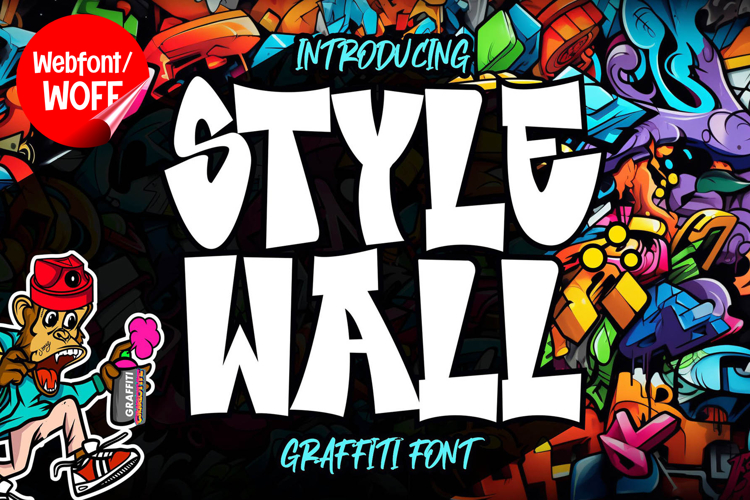
Style Wall | Awesome Graffiti Webfont for Urban Creative
Style Wall is an awesome graffiti webfont designed to capture the spirit of street art and transform it into a bold, expressive solution for modern website design. Inspired by graffiti murals, tagging culture, and urban creativity, this font features energetic letterforms and artistic details that create a strong and dynamic visual identity. It is an excellent choice for projects that aim to stand out with authentic street style and creative impact.
Style Wall includes a complete set of uppercase characters designed with bold graffiti-inspired shapes. The letterforms are expressive and dynamic, combining sharp edges with flowing curves to create a sense of movement and energy. These characteristics make it ideal for headlines, banners, hero sections, and featured content where strong visual impact is essential.
In addition to letters, the font includes numbers and punctuation, allowing flexible usage across various parts of a website. It works well for branding elements, promotional content, event announcements, music platforms, and creative layouts. Each character maintains a consistent graffiti style, ensuring a cohesive and unified visual identity throughout the design.
With multilingual support, Style Wall includes a wide range of accented characters, making it suitable for international websites and global audiences. This ensures that content can be displayed clearly across different languages while preserving the bold and artistic aesthetic.
The graffiti style of Style Wall makes it especially suitable for urban-themed websites, streetwear brands, creative portfolios, gaming interfaces, and entertainment platforms. Its vibrant and energetic design adds personality and depth, helping websites stand out in visually competitive environments. The artistic letterforms enhance storytelling and strengthen brand identity.
Despite its expressive and decorative appearance, Style Wall is designed with readability in mind. The spacing and proportions are carefully balanced to ensure clarity, particularly in display sizes. This makes it effective for impactful headings and short content elements where both style and usability are important.
Style Wall is a webfont that combines graffiti aesthetics with modern digital performance. Its bold shapes, dynamic structure, and urban character create a distinctive typographic presence that enhances website design. For projects that require a creative, bold, and visually engaging graffiti font, Style Wall offers a powerful and versatile solution.